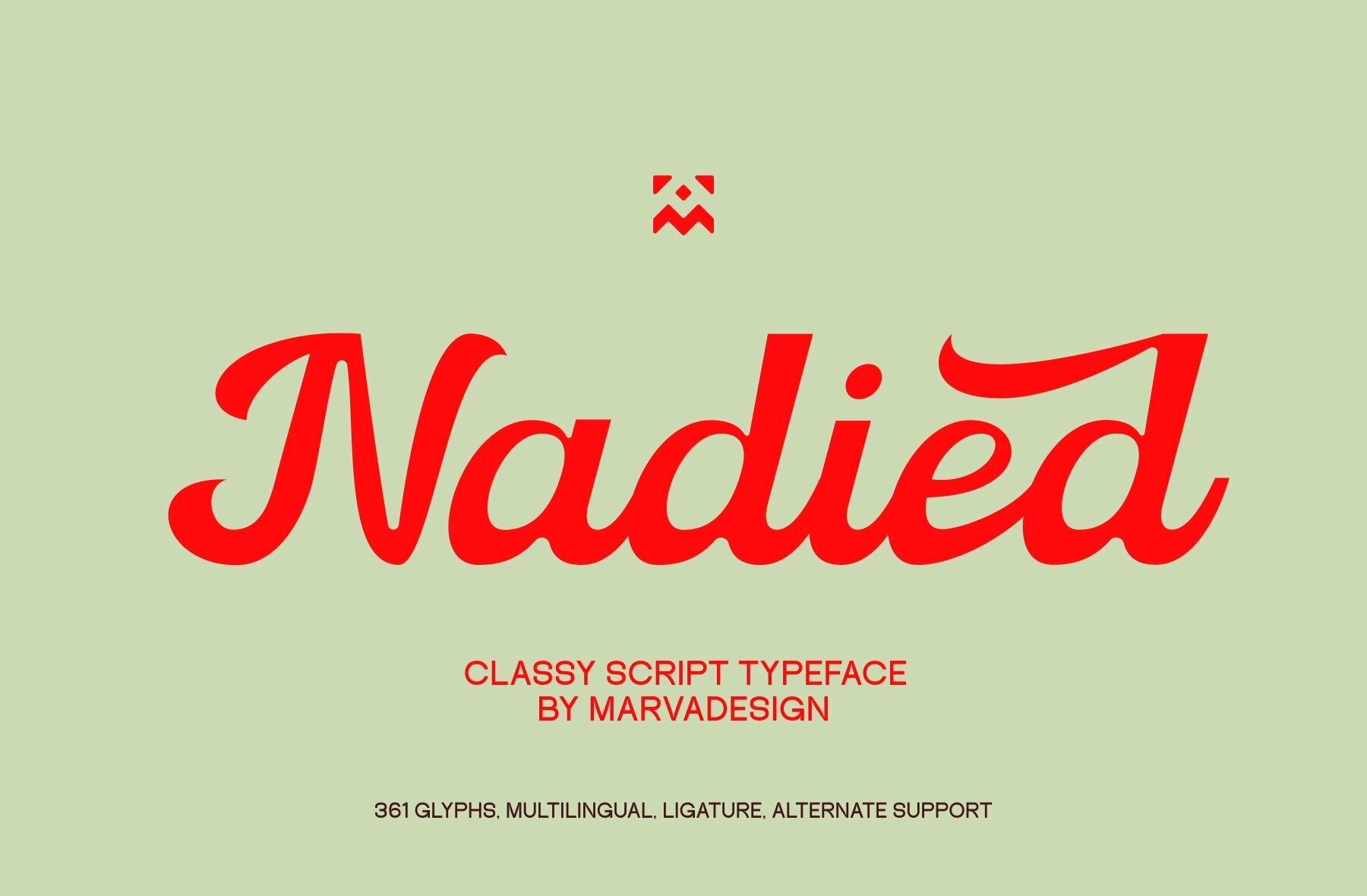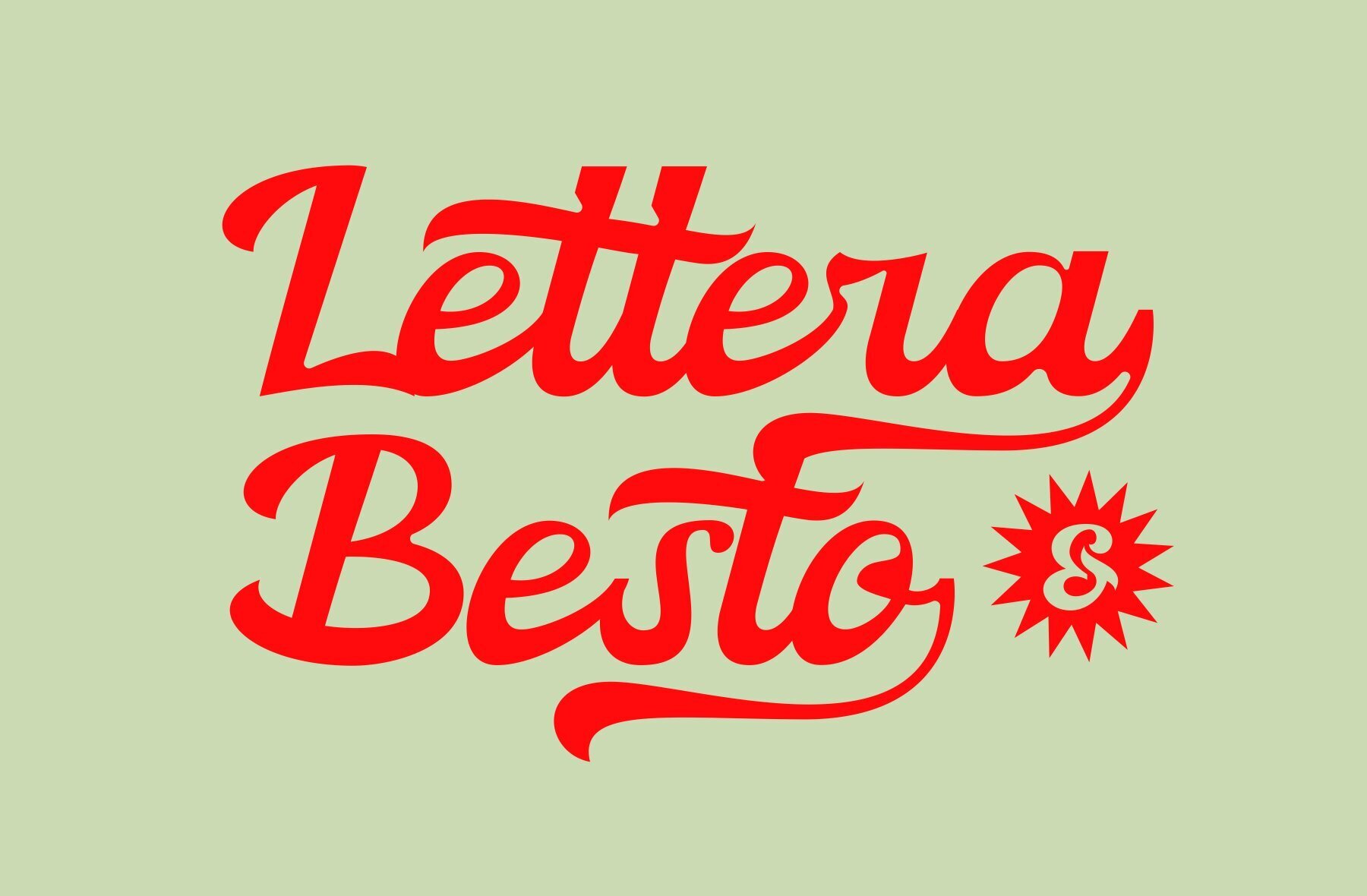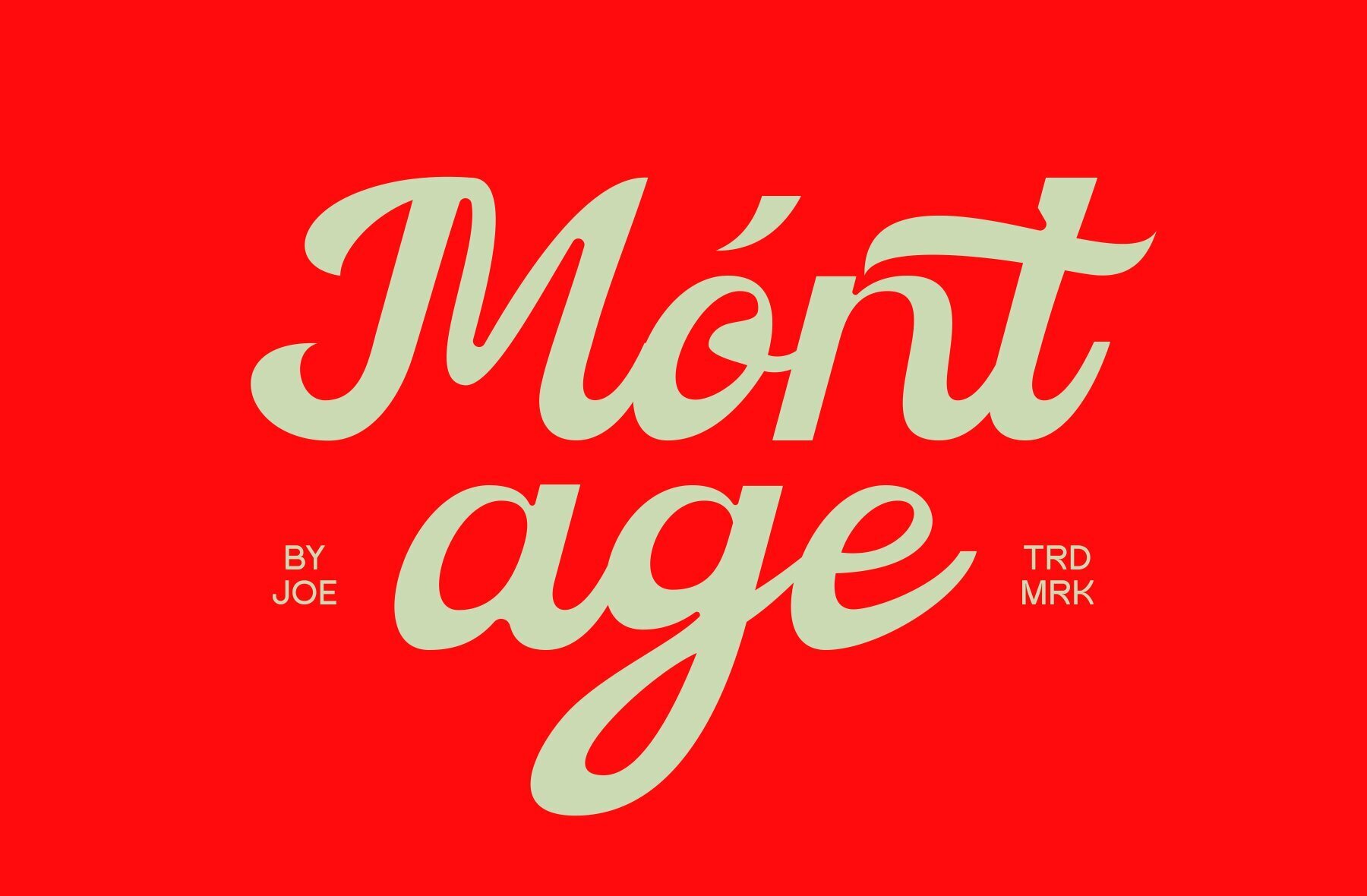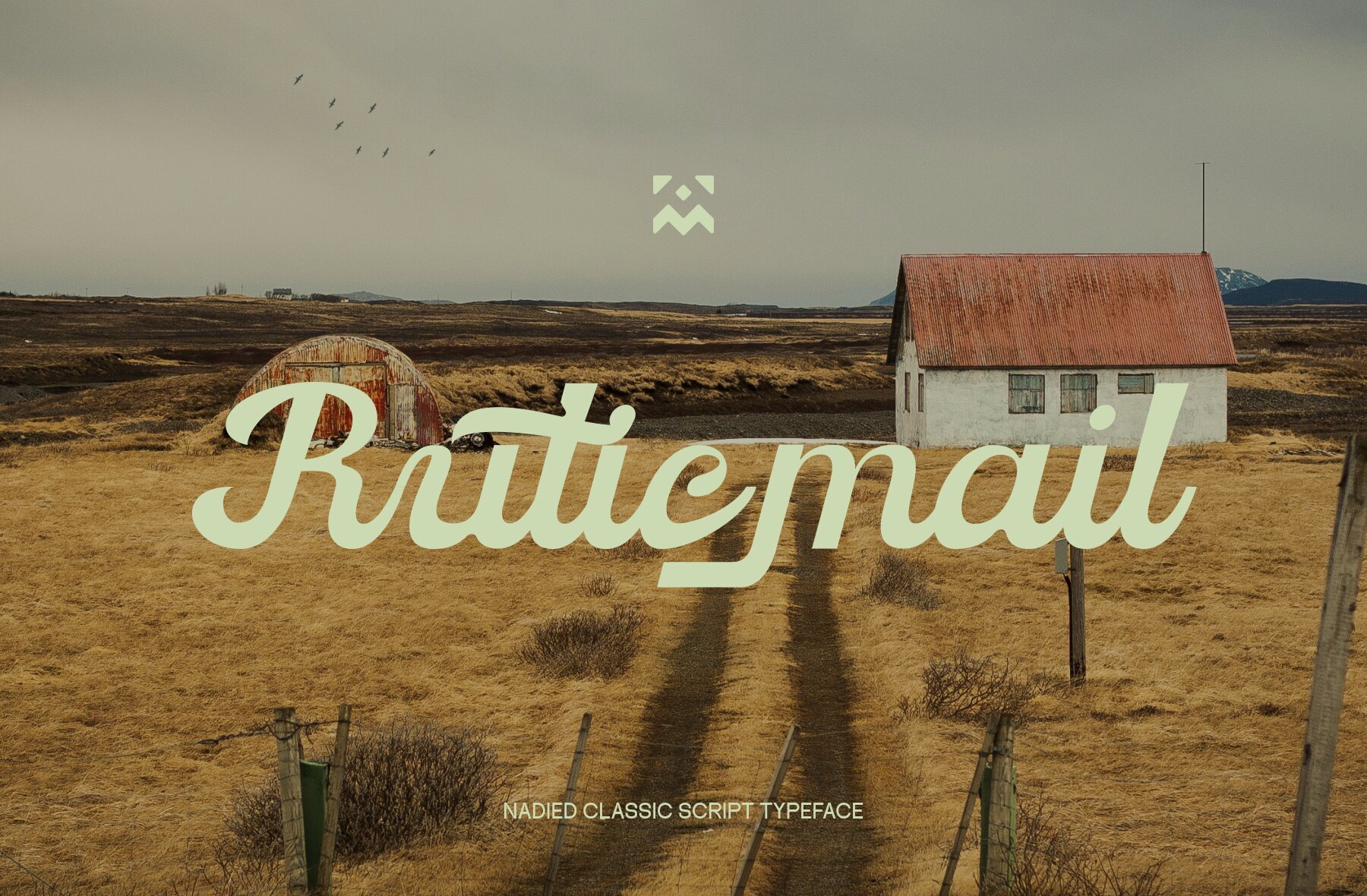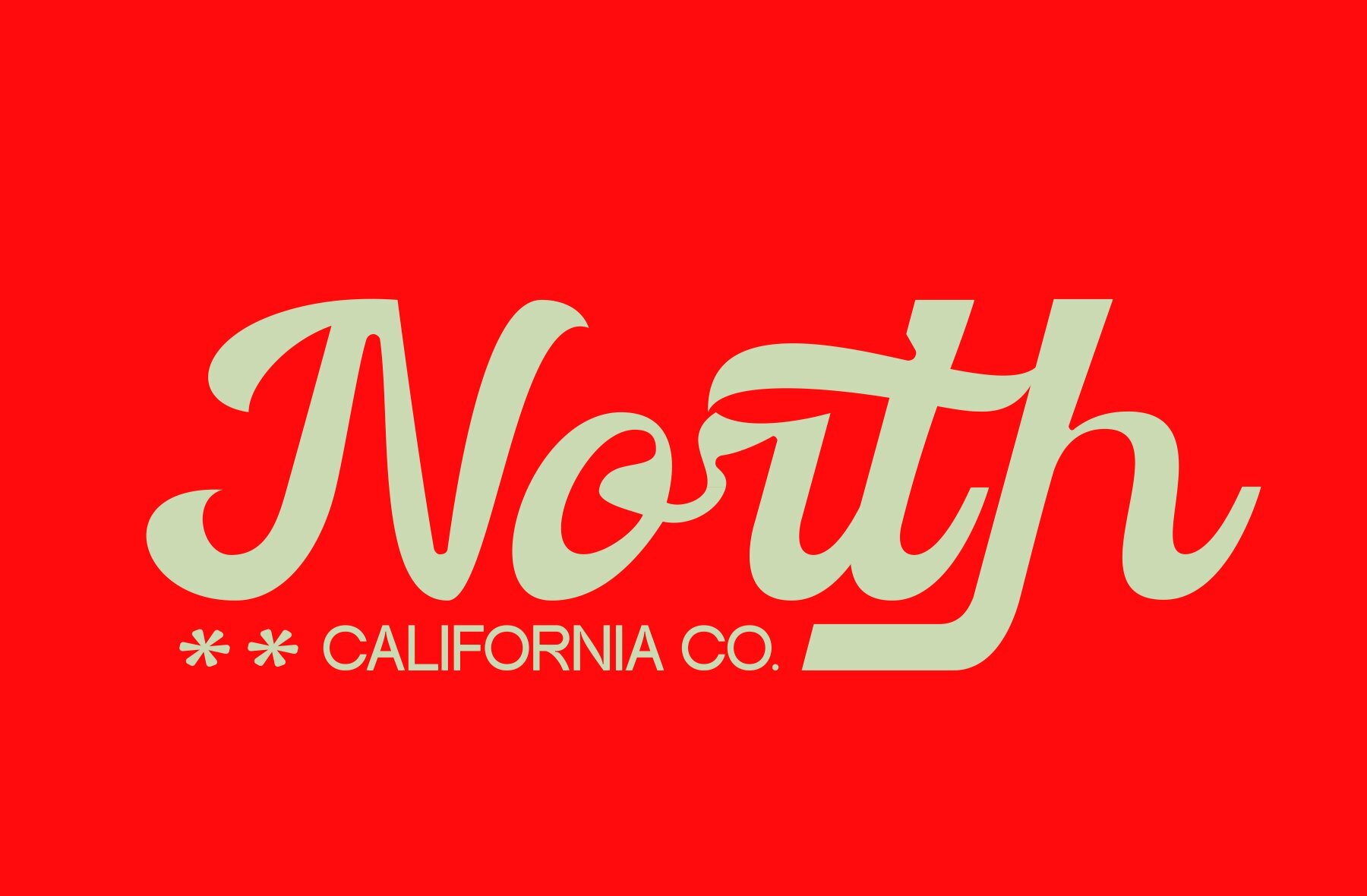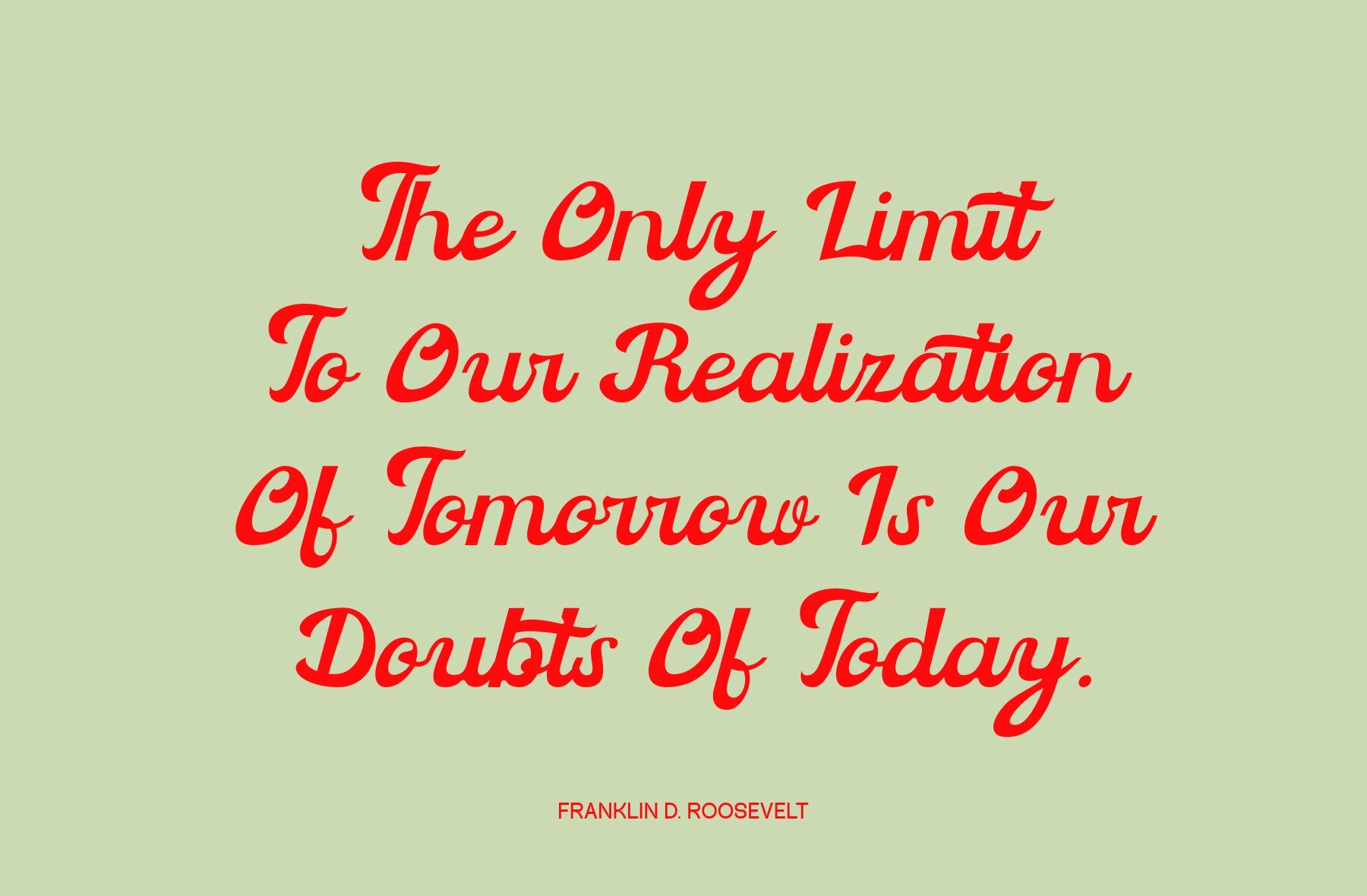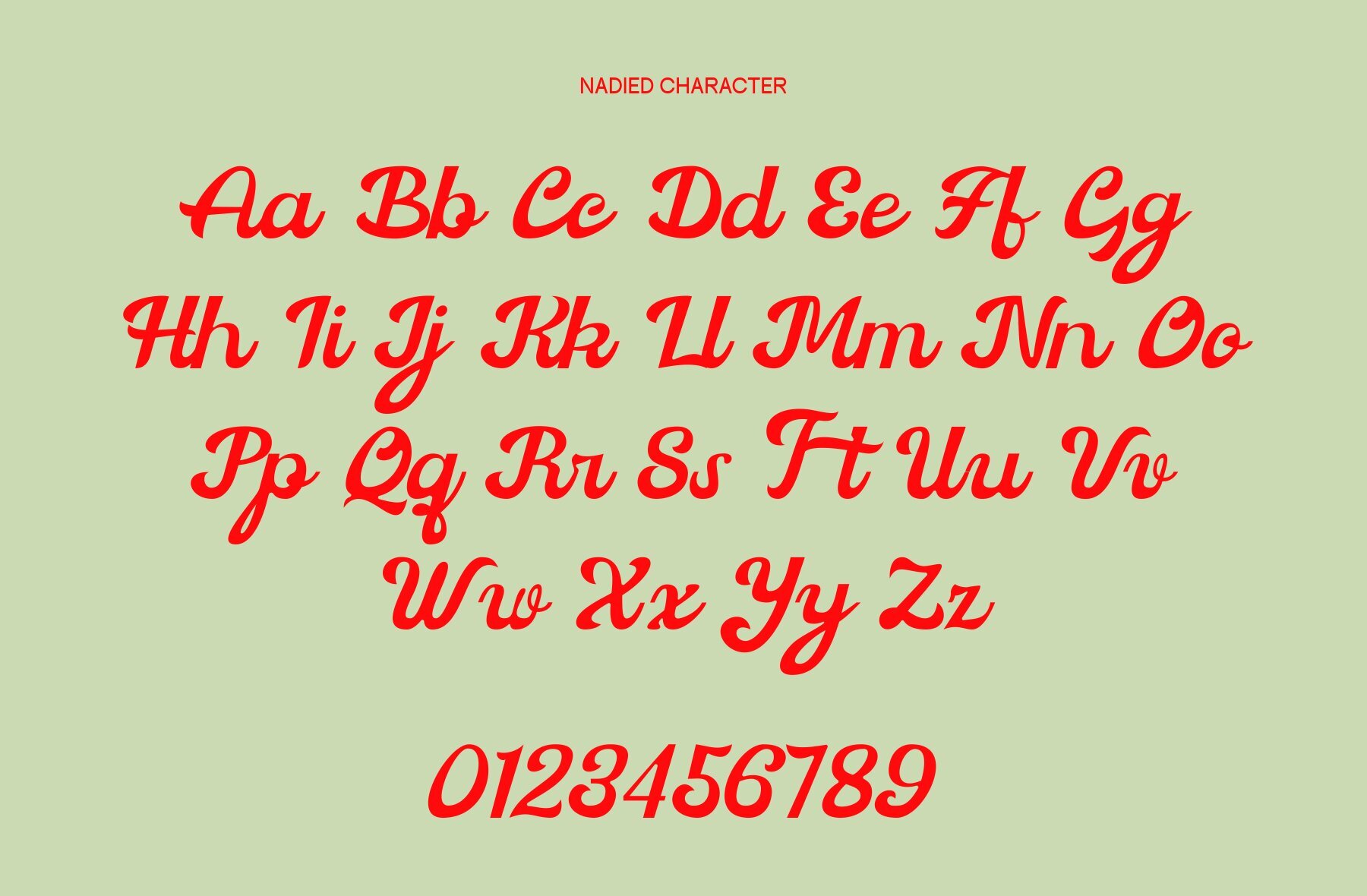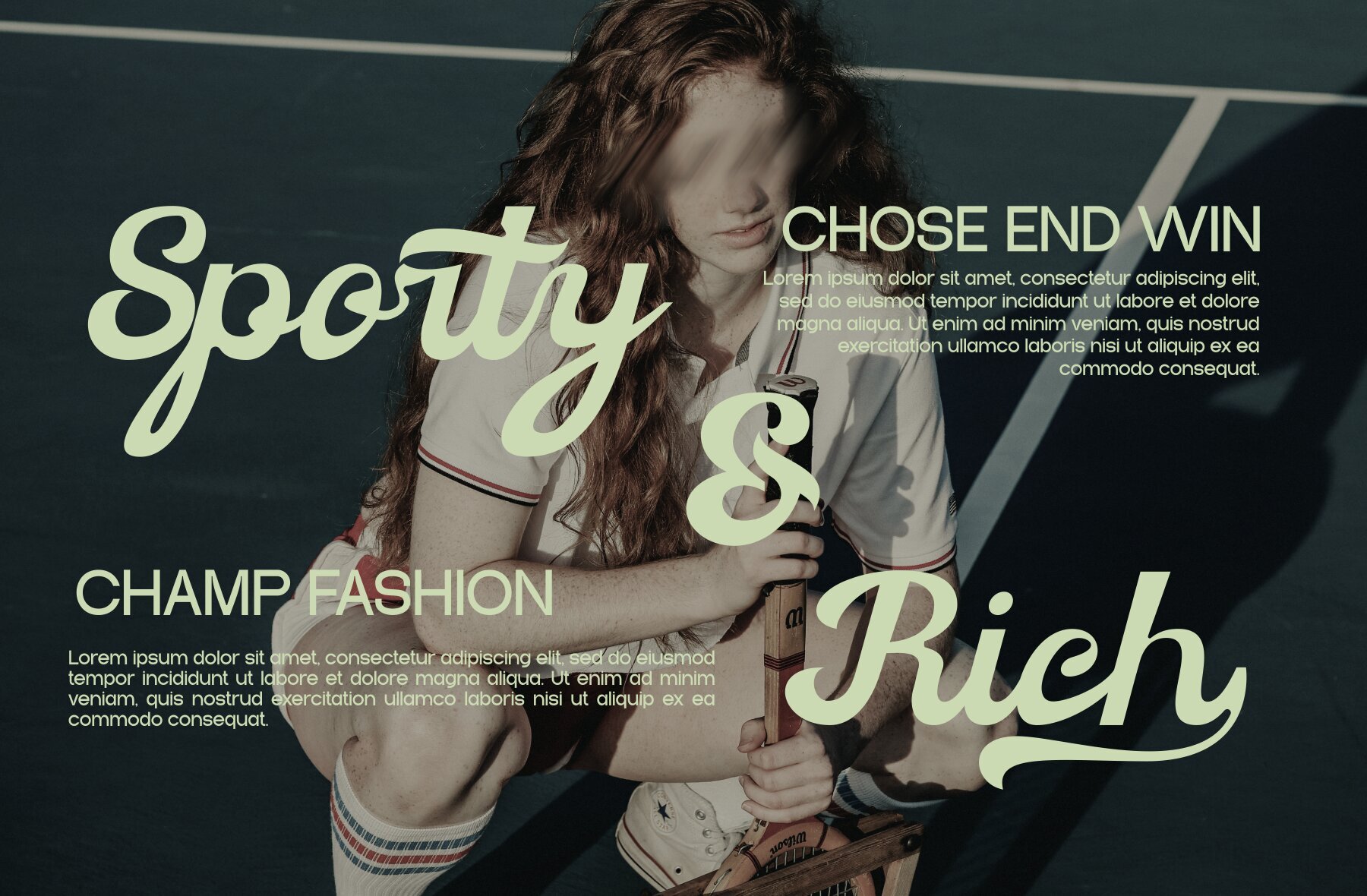
Nadied Font
Nadied
Nadied is a captivating Script and Handwritten font that marries elegance with classic style. Each character demonstrates a sophisticated touch, making it ideal for a variety of design projects. With its unique letterforms, this font imparts a personalized flair to any design, ensuring a distinct and memorable presentation.
In addition to its elegant design, Nadied offers an extensive selection of ligatures and stylistic alternates. These features provide designers with the tools to craft diverse and creative layouts, all while preserving a refined and polished look. Nadied is the perfect choice for projects that require a timeless and sophisticated aesthetic.